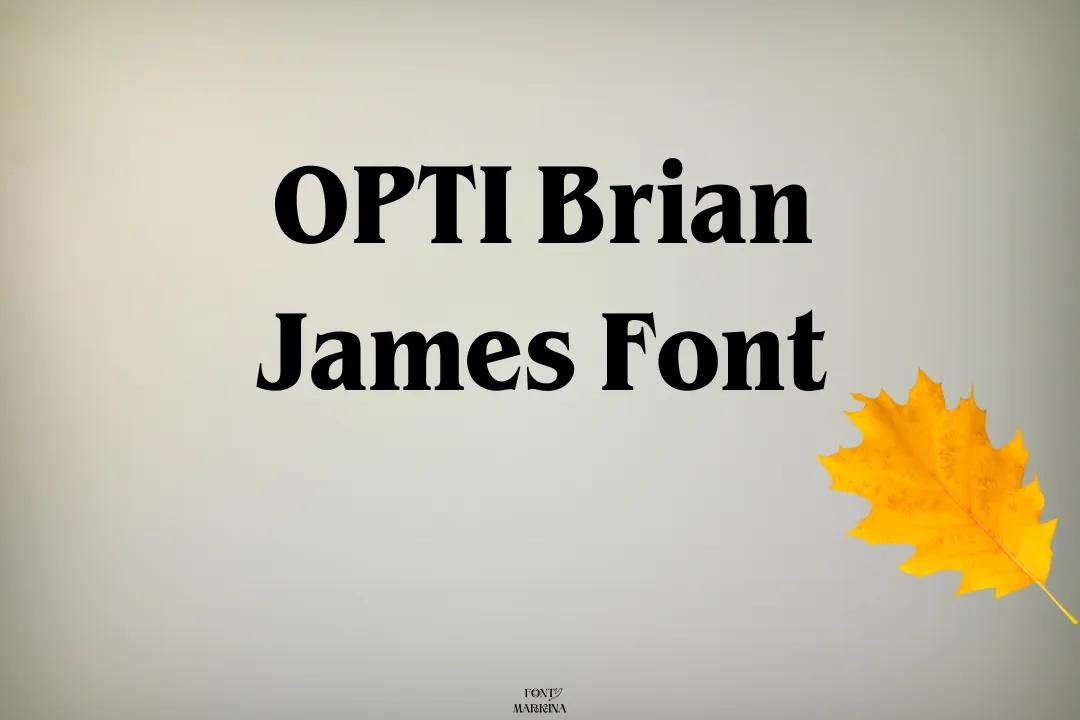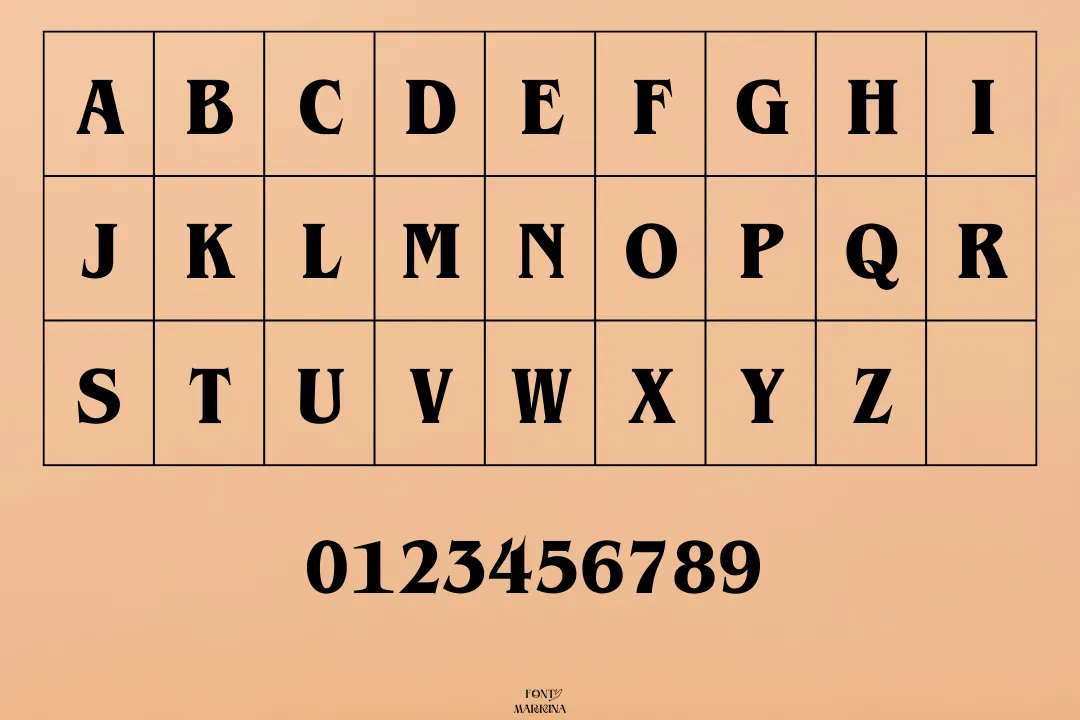
OPTI Brian James Font
The OPTI Brian James Font is a famous display typeface that was presented through Typographer Mediengestaltung and is available in the free version. You may get it in both file formats OTF and TTF. This font is under the category of display texture family with stunning and unique types of alphabet sets.
The subfamily of the OPTI Brian James texture is ItalicBold and has an online generator tool, where you can change all your normal type of alphabet sets into contemporary and trendy shapes.
Uses of OPTI Brian James Font
You can utilize this typeface for multiple types of projects. It is suitable for all your fun purpose, and methods because it contains uppercase letters, numerals, symbols, digits, and punctuations. This font is specially created for display purposes and many other projects.
What font type is OPTI Brian James Font?
Where can I utilize the OPTI Brian James?
What does the OPTI Brian James typeface look like?
This outstanding typeface looks like the Kayooh Japanese Business Font and makes attractive projects.